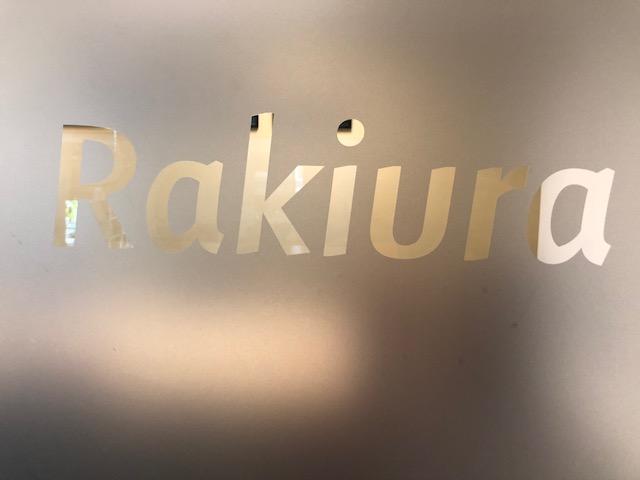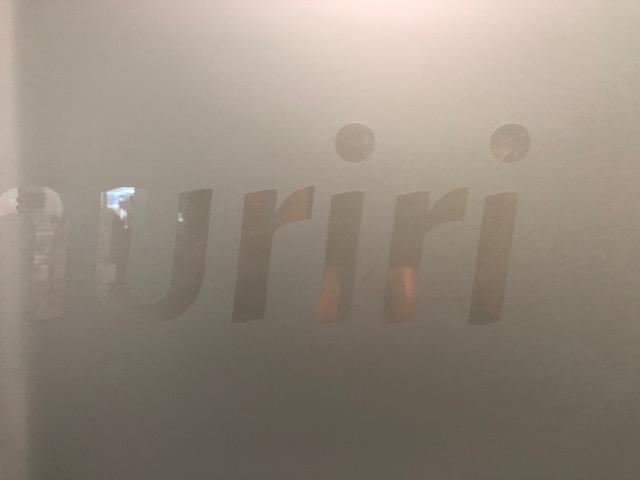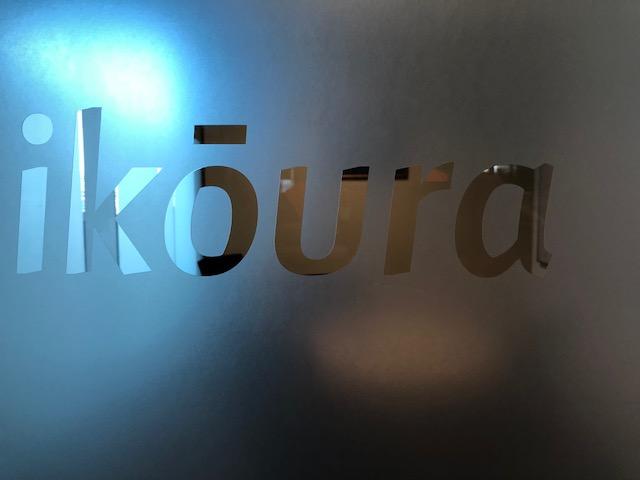
Looking for the font used on this window film at the Te Runanga o Ngai Tahu offices.
Eva if you visit any of their websites listed on google and download any of their material as a pdf, they use two typefaces: Bree and Verdana.
Here is Bree: https://www.myfonts.com/fonts/type-together/bree/bold-oblique/
as you can clearly see it is slightly similar but not identical, notice the very distinct "a" and the "o".
I can only suggest the typeface used was either a custom designed job, or a font especially made for the specific sign cutter machine.